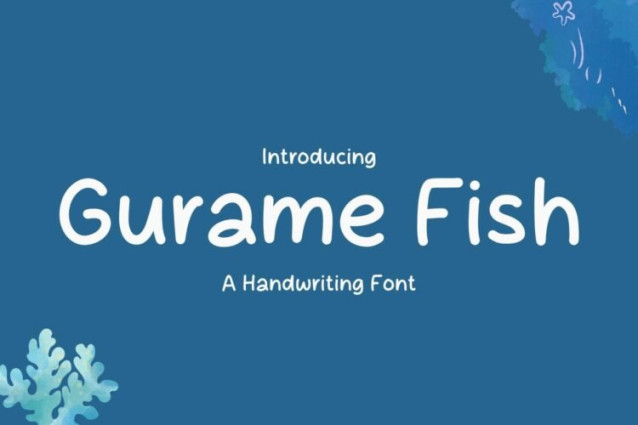
Gurame Fish Font
Gurame Fish Font a sweet and friendly handwritten font. Cute and fun, this font is ideal for writing wedding invitations, cards, or any other design that might need a fun touch!